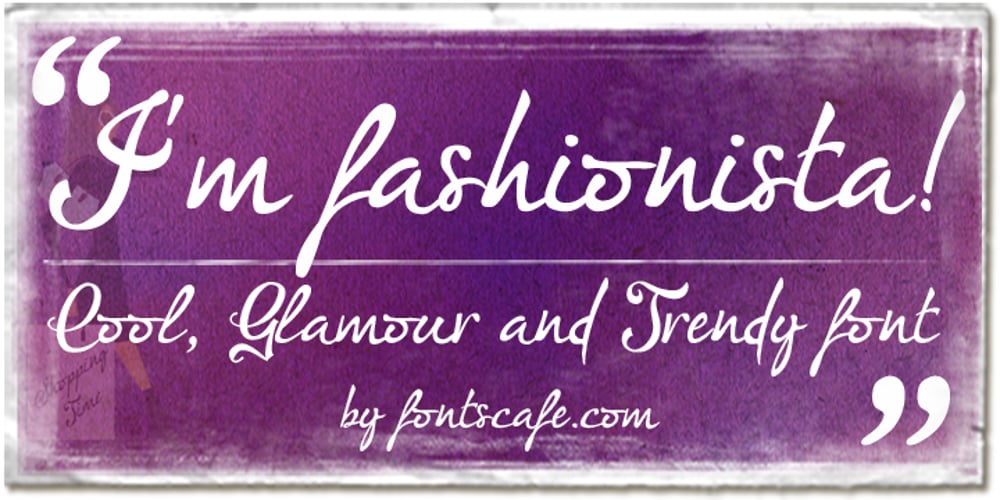
I’m Fashionista! Font Family was designed by published by Fontscafe. I’m Fashionista! contains 1 styles and family package options. We’re delighted to bring you ‘I’m Fashionista,’ which simply oozes trendiness, style, glamour, and of course high fashion! This is a font that sings out ‘elite’ in the design sense of the word. Its sophisticated sensibility sets it apart from any other font you may have used. If you’ve ever needed to create your own fonts to use on a fashion flyer, you can already appreciate the value of having ready-to-use fonts such as ‘I’m Fashionsita’ in your bag of tricks! Anything to do with fashion and glamour needs to have that touch of delicacy, charm, beauty, and exclusivity to it, and we find the ‘I’m Fashionsita’ a perfect fit for such jobs. ‘I’m Fashionista’ is a must-have for any designer, especially those working with modern and upmarket designs.